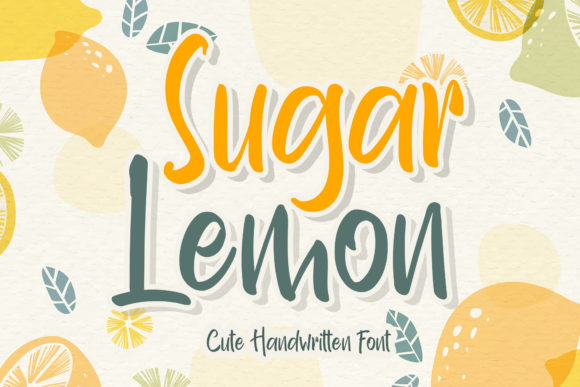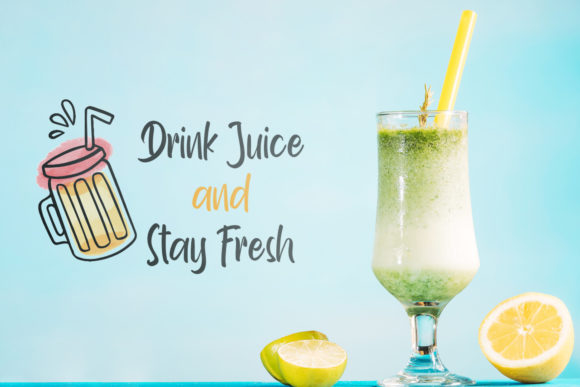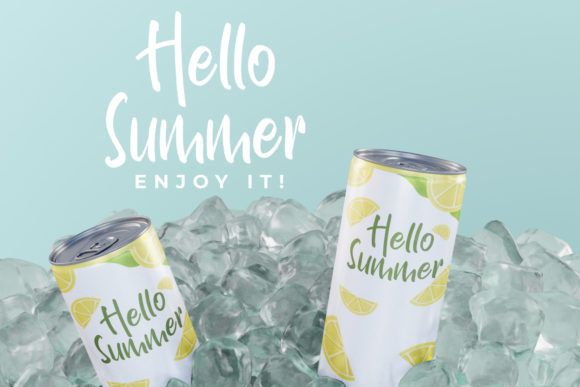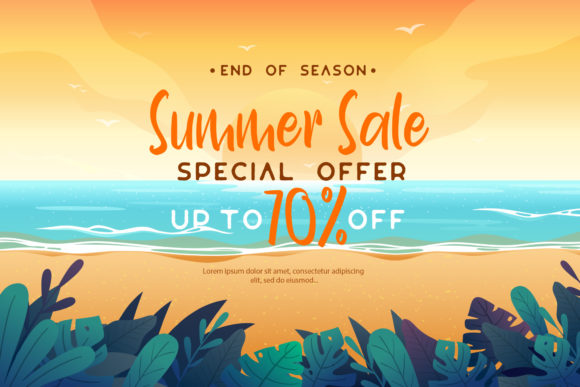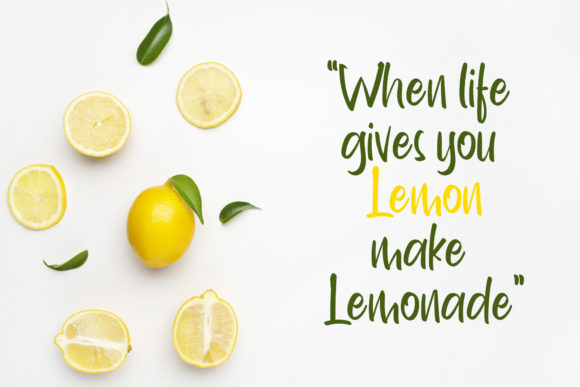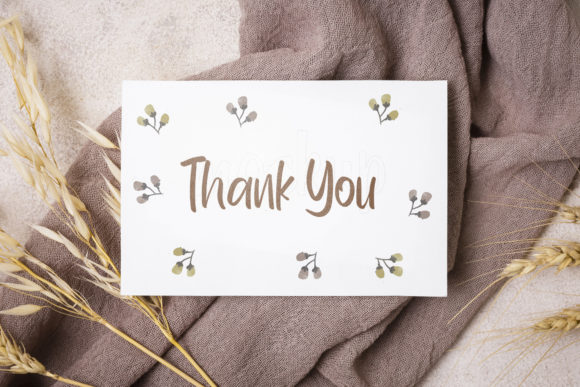
Sugar Lemon Font
About Sugar Lemon Font
Sugar Lemon is a cute handwritten font with an incredibly friendly feel.
Add this playful and adventurous font to each of your casual designs, and notice how they will instantly radiate authenticity.